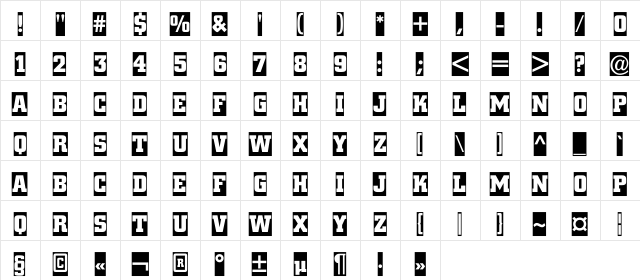
a_CityNovaTitulCm Bold
Design Context for a_CityNovaTitulCm Typeface
a_CityNovaTitulCm offers clean, dependable letterforms without strong stylistic allegiance, making it a practical choice for designers who need flexibility. The heavy weight commands attention and anchors typographic hierarchies.